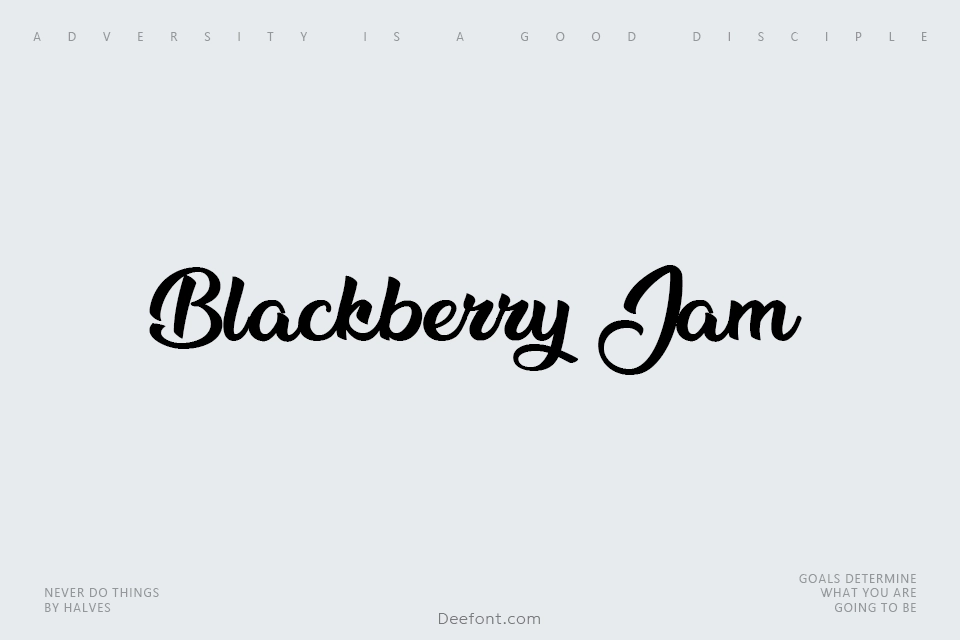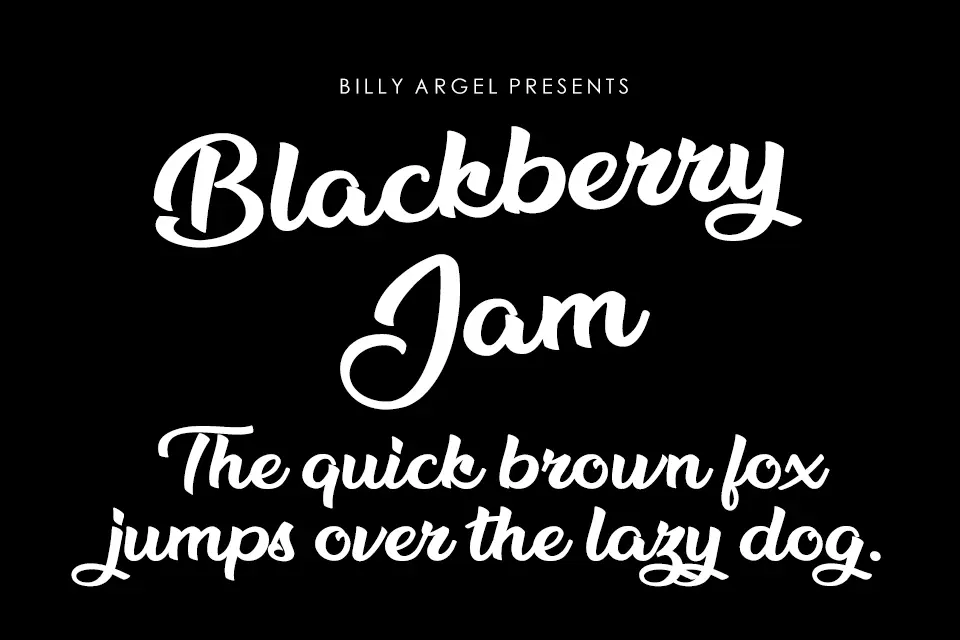
Blackberry Jam Font
Blackberry Jam is a bold and flowing script typeface crafted by Billy Argel, featuring elegant cursive letterforms with artistic flair and connected letters. This free-to-use font for personal projects delivers 282 glyphs and supports accented characters, making it perfect for decorative typography, invitations, and creative designs. Its smooth, brush-like appearance combines calligraphic elegance with contemporary style, offering designers a versatile tool for eye-catching visual presentations.